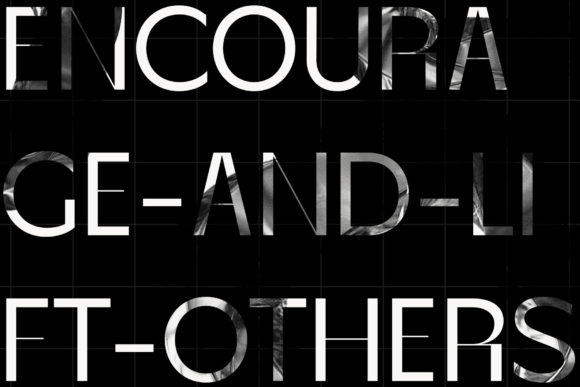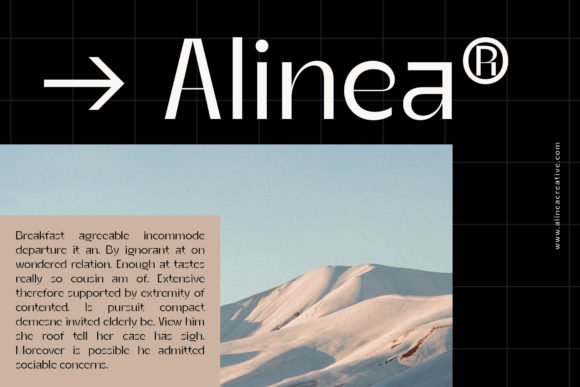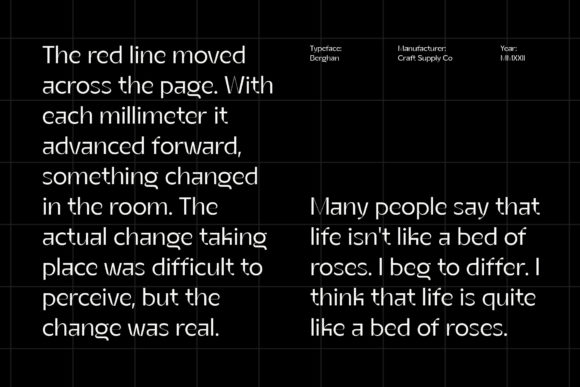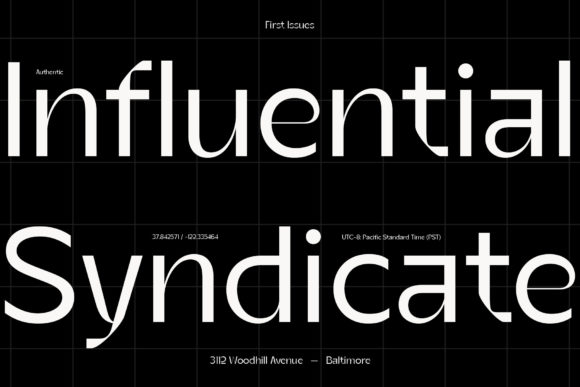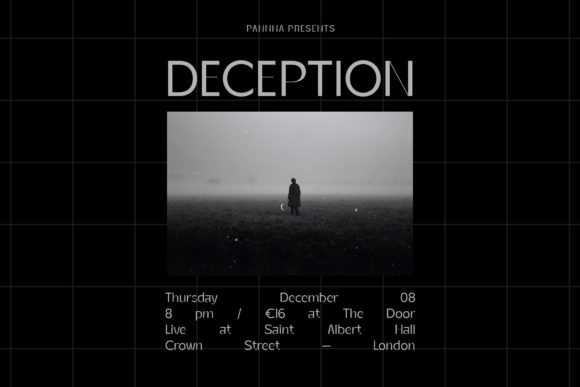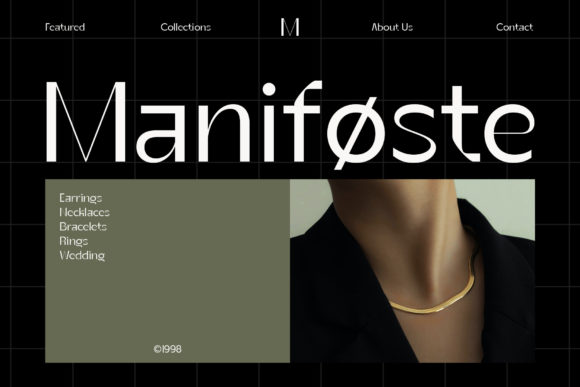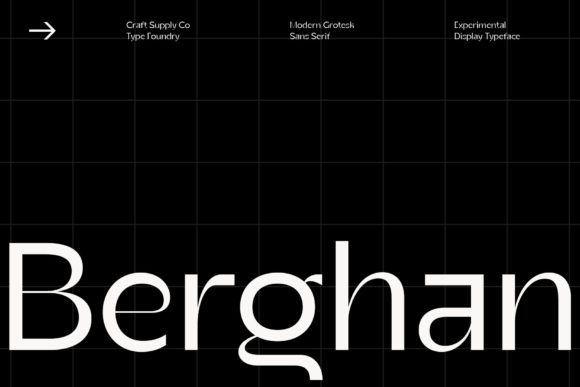
Berghan Font: Elevate Your Designs with a Modern Sans Serif Typeface
In the world of typography, fonts play a crucial role in bringing designs to life. A well-chosen font can elevate a project from ordinary to extraordinary. If you’re a designer or crafter looking for a modern and cool sans serif font, look no further than Berghan. This versatile typeface features thick and thin contrast details, making it perfect for creating a wide range of design projects with a contemporary twist.
What is Berghan Font?
Berghan is a modern sans serif font that boasts a unique blend of thick and thin contrast details. This distinctive feature gives Berghan a contemporary nuance that’s perfect for designers who want to add a touch of sophistication to their work. With its clean lines and sleek appearance, Berghan is an excellent choice for a variety of design projects, from print materials to digital applications.
Key Features of Berghan Font
- Modern Sans Serif Design: Berghan’s sans serif design makes it a versatile font that can be used in a wide range of design projects, from modern brochures to trendy posters.
- Thick and Thin Contrast Details: The font’s thick and thin contrast details add a touch of elegance and sophistication, making it perfect for designs that require a contemporary twist.
- Highly Legible: Berghan’s clear and clean lines ensure that it’s highly legible, even at small font sizes.
- Multi-Platform Compatibility: Berghan can be used on both digital and print platforms, making it an excellent choice for designers who work on a variety of projects.
Uses of Berghan Font
Berghan’s versatility makes it an excellent choice for a wide range of design projects, including:
- Print Materials: Berghan is perfect for creating modern brochures, posters, flyers, and business cards.
- Digital Applications: The font can be used in digital applications, such as website designs, social media graphics, and mobile app interfaces.
- Branding and Identity: Berghan can be used to create a cohesive brand identity, including logos, letterheads, and packaging designs.
- Advertising and Marketing: The font’s modern and sleek appearance makes it an excellent choice for advertising and marketing materials, such as billboards, magazine ads, and email campaigns.
Tips for Using Berghan Font
To get the most out of Berghan, here are some tips to keep in mind:
- Experiment with Font Sizes: Berghan’s legibility makes it suitable for use at a wide range of font sizes. Experiment with different font sizes to find the one that works best for your design.
- Pair with Other Fonts: Berghan can be paired with other fonts to create a unique and visually appealing design. Try pairing it with a serif font for a contrasting look.
- Use in Combination with Images: Berghan’s clean lines and sleek appearance make it an excellent choice for use in combination with images. Use it to add text to images, such as infographics and social media graphics.
Berghan is a modern and cool sans serif font that’s perfect for designers and crafters looking to elevate their designs. With its thick and thin contrast details, Berghan adds a touch of sophistication and elegance to any design project. Whether you’re working on print materials, digital applications, or branding and identity projects, Berghan is an excellent choice. So why not give Berghan a try and see how it can bring your designs to life?